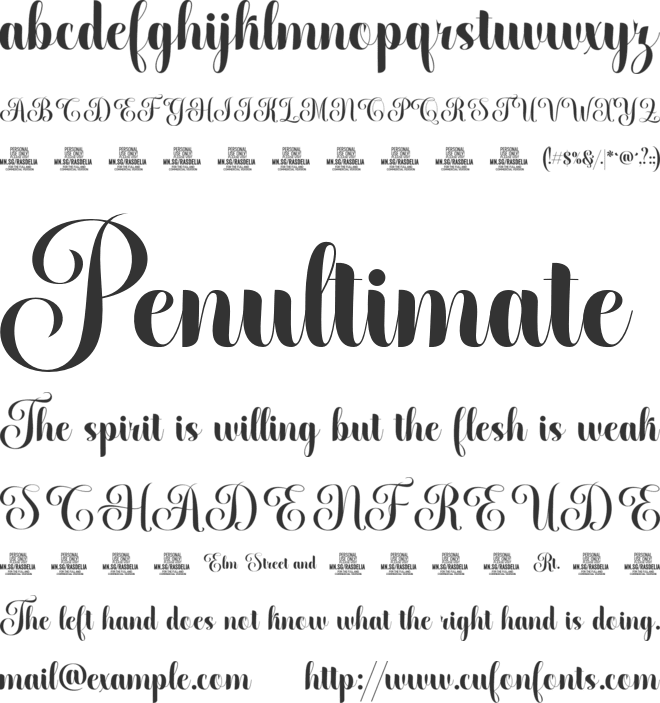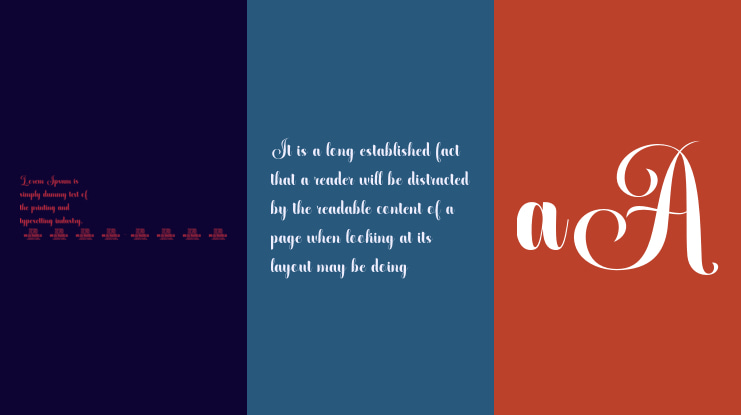
Rasdelia Calligraphy PERSONAL Font Family
Mans Greback
NOTE: This font is for PERSONAL USE ONLY!To purchase a commercial license, visit:https://www.mansgreback.com/product/rasdelia-calligraphyRasdelia Calligraphy is a bold script typeface with high-contrast curves and extravagant swashes. Designed with precision and flair, it merges classic calligraphy with modern typography, balancing delicacy with power. With thick downstrokes and elegant upswings, each letter flows into the next with rhythmic grace.For questions, please visit https://mansgreback.com/faq